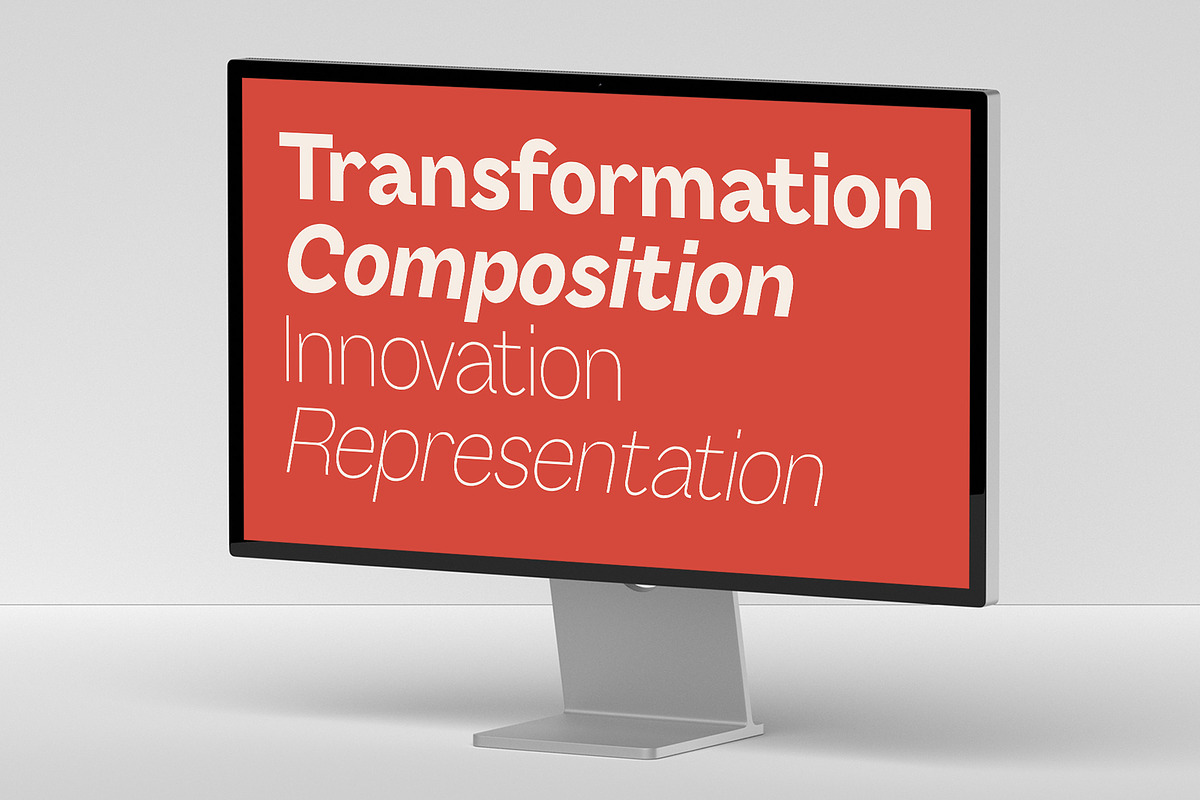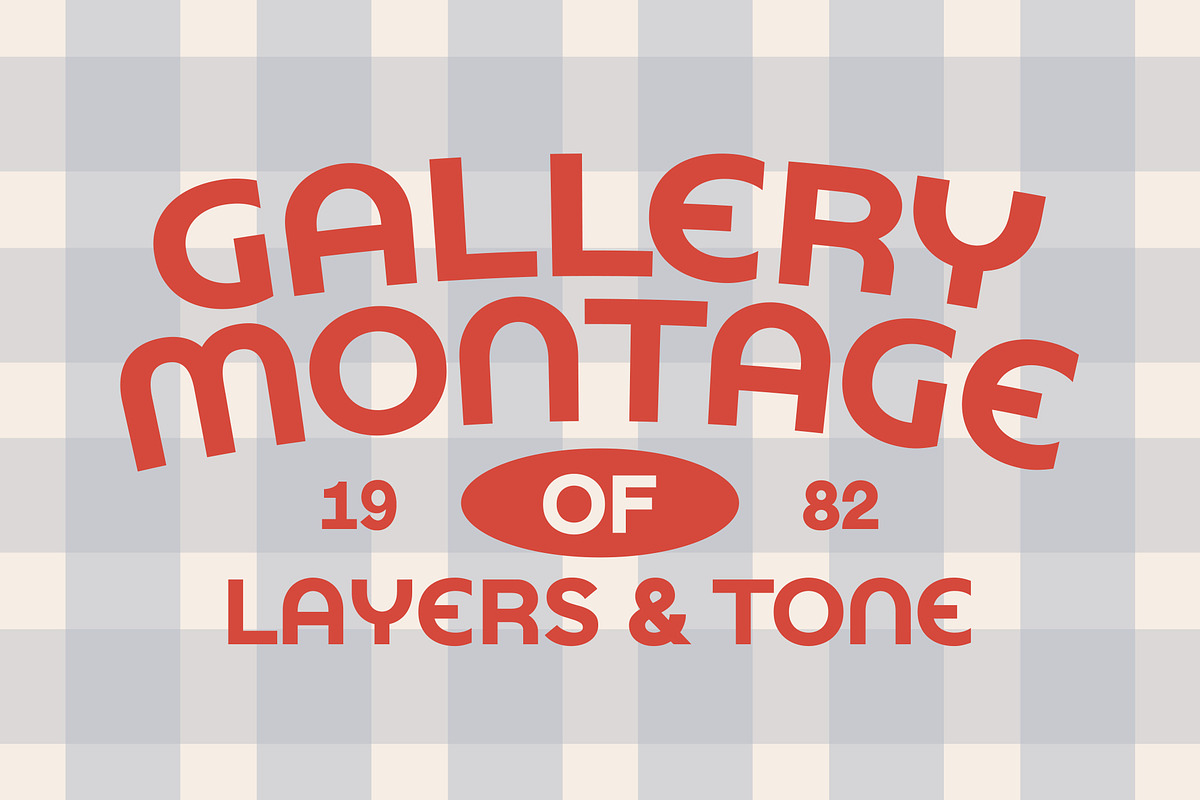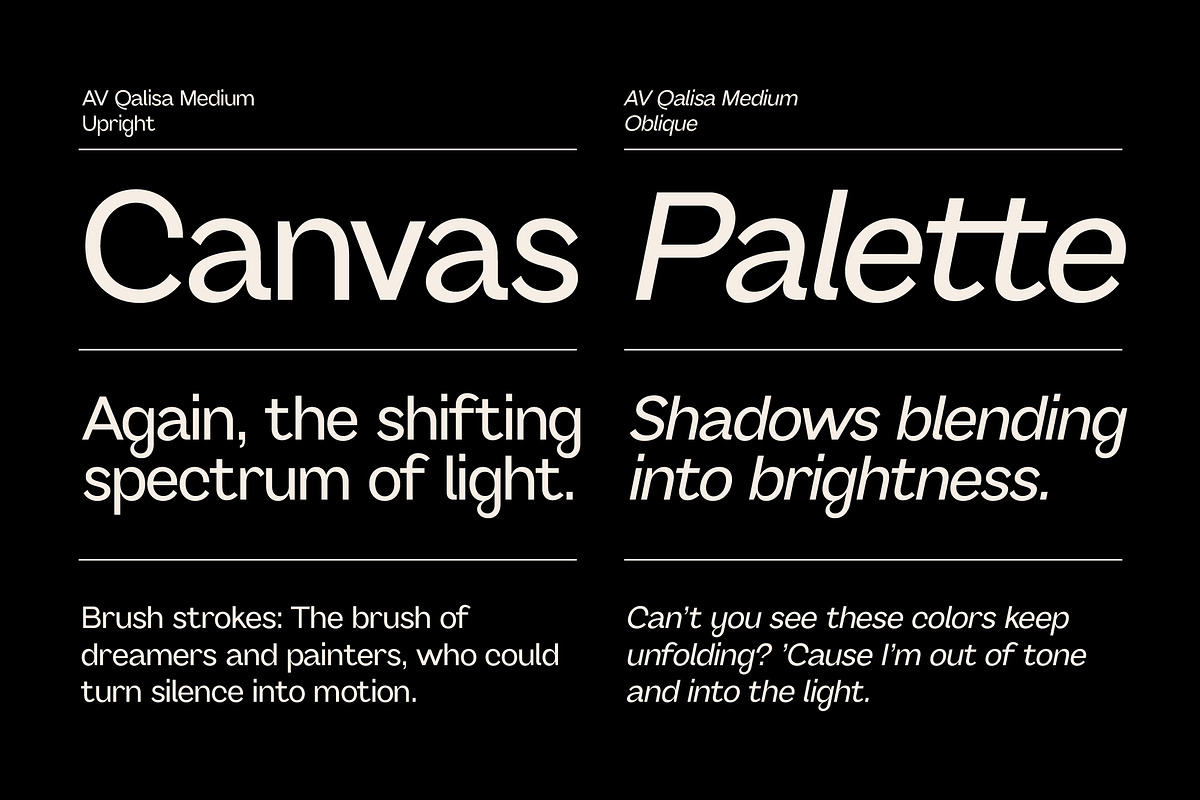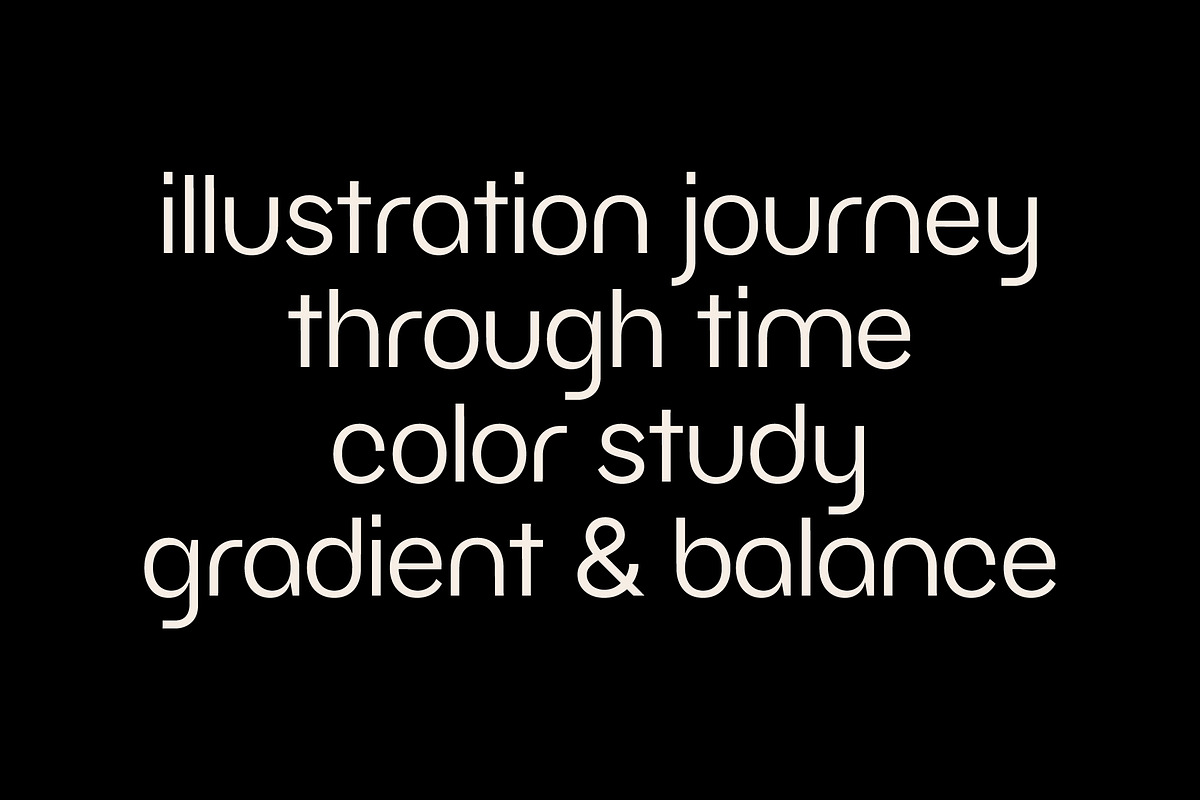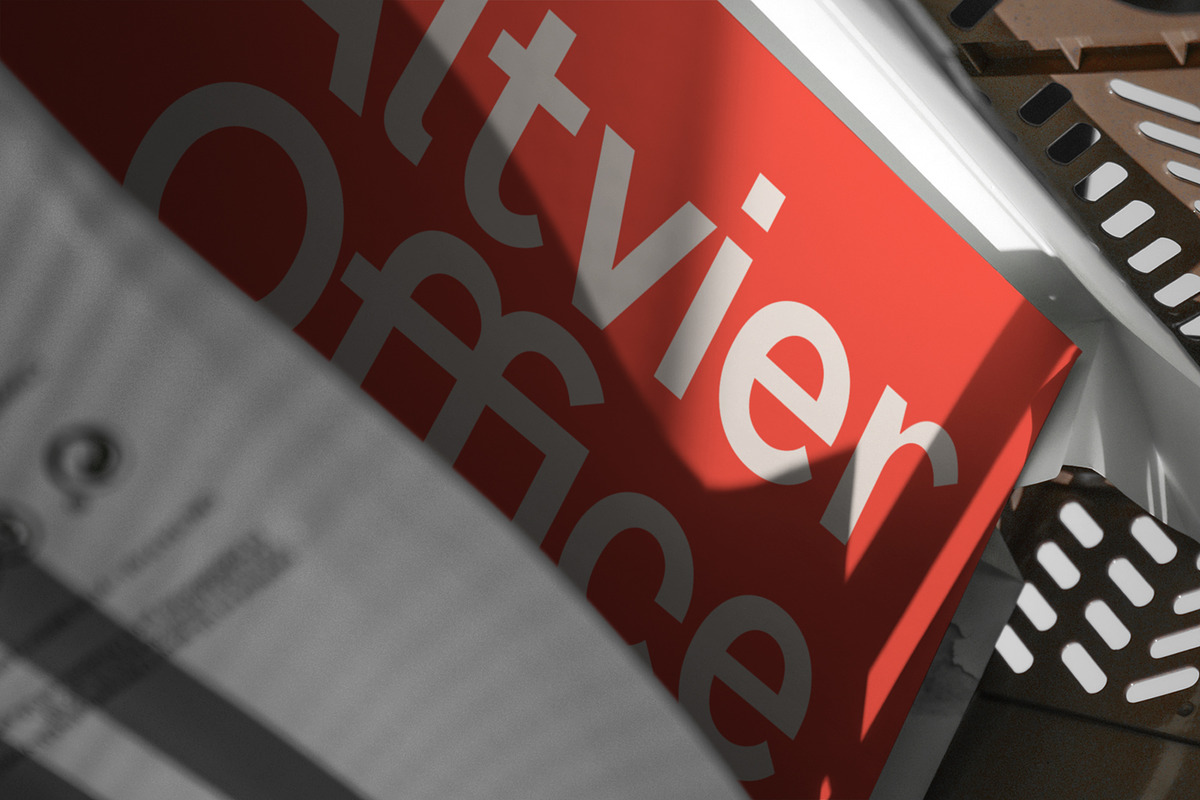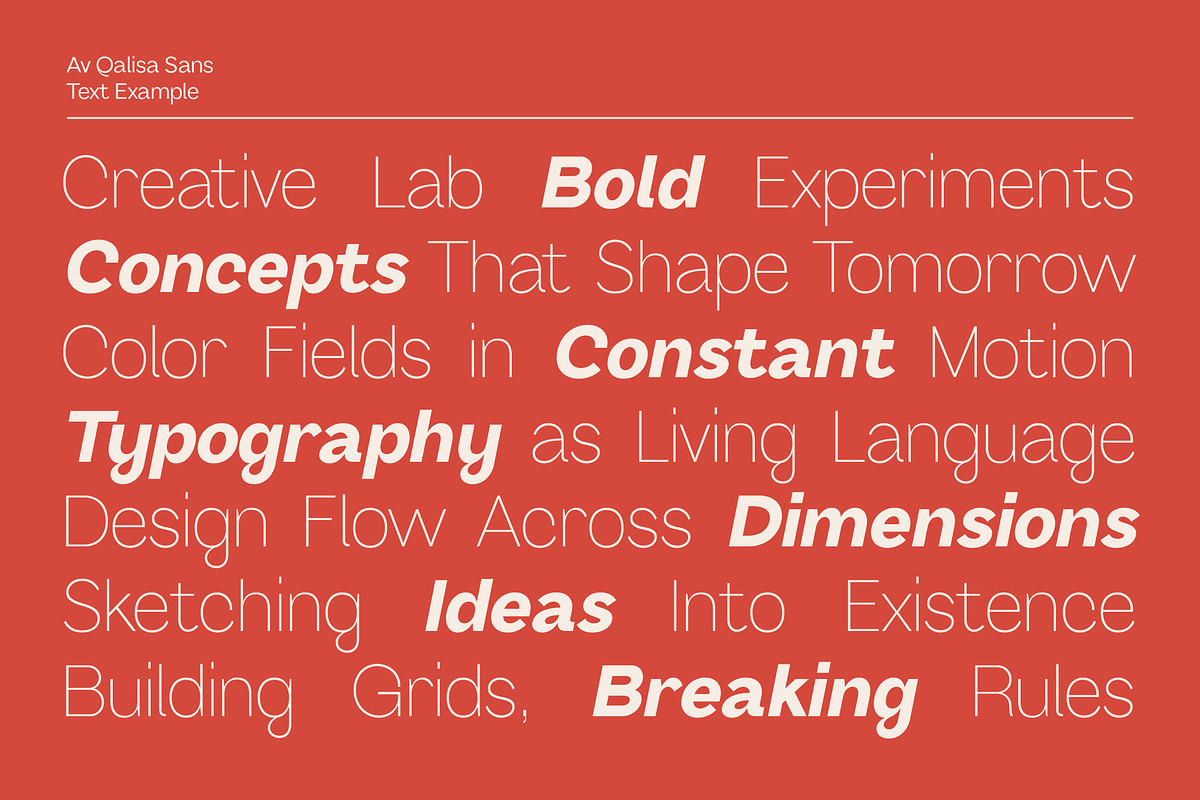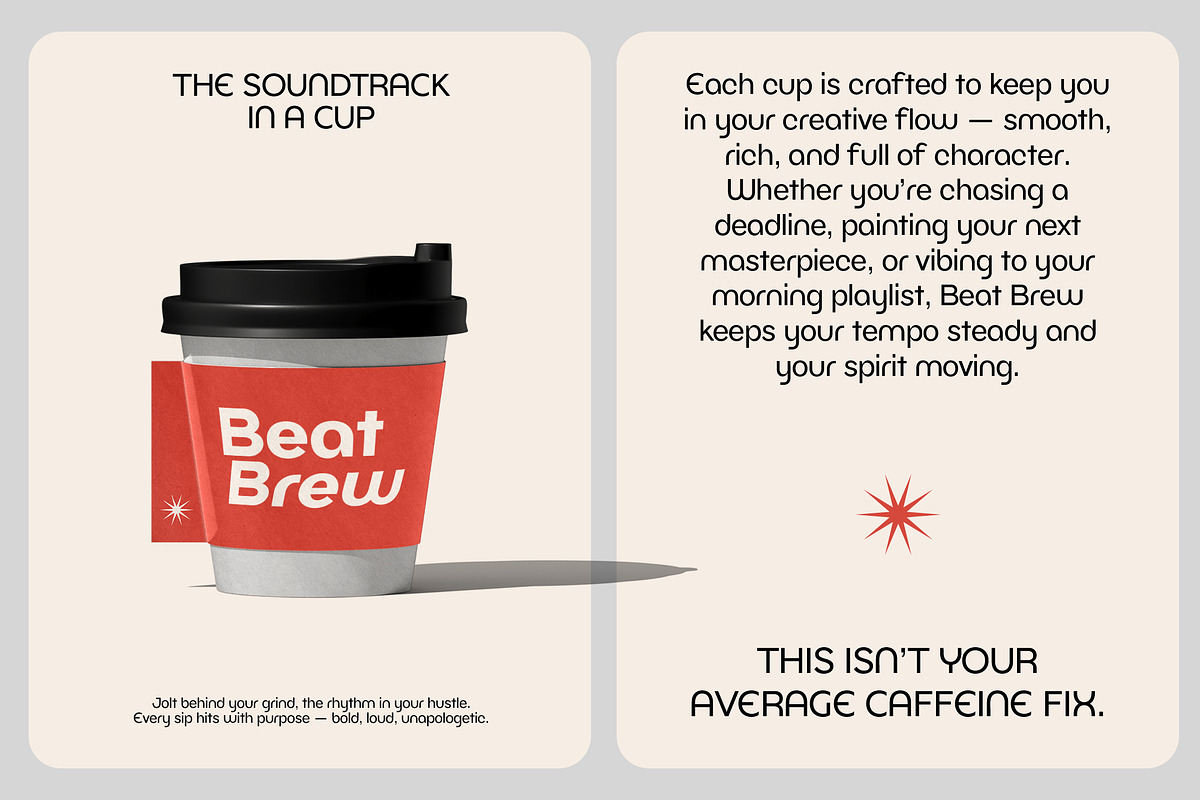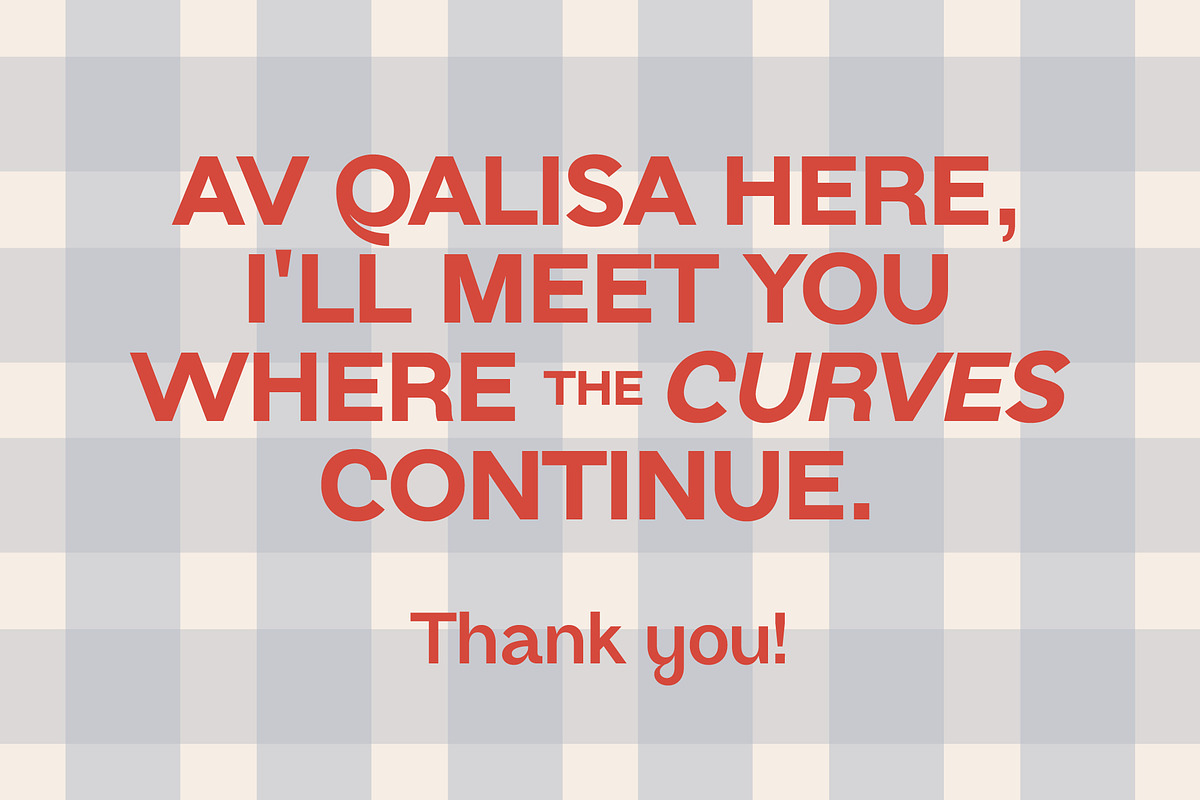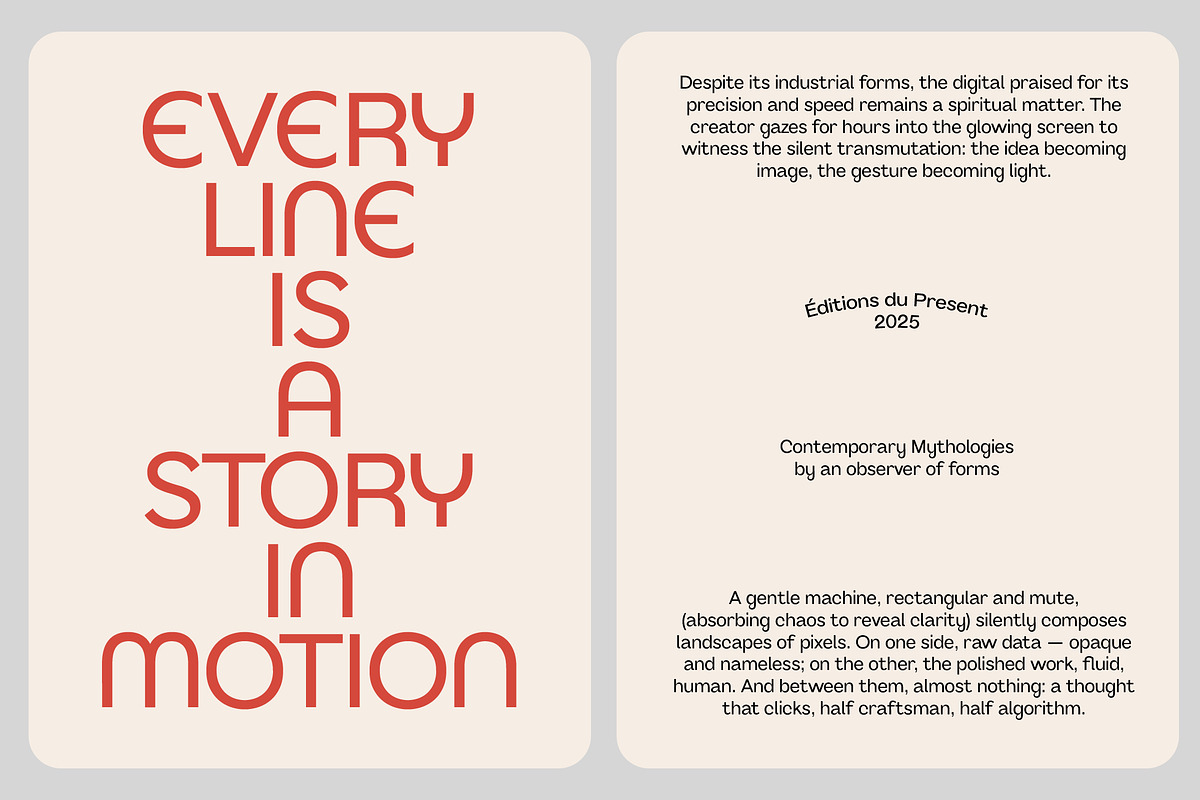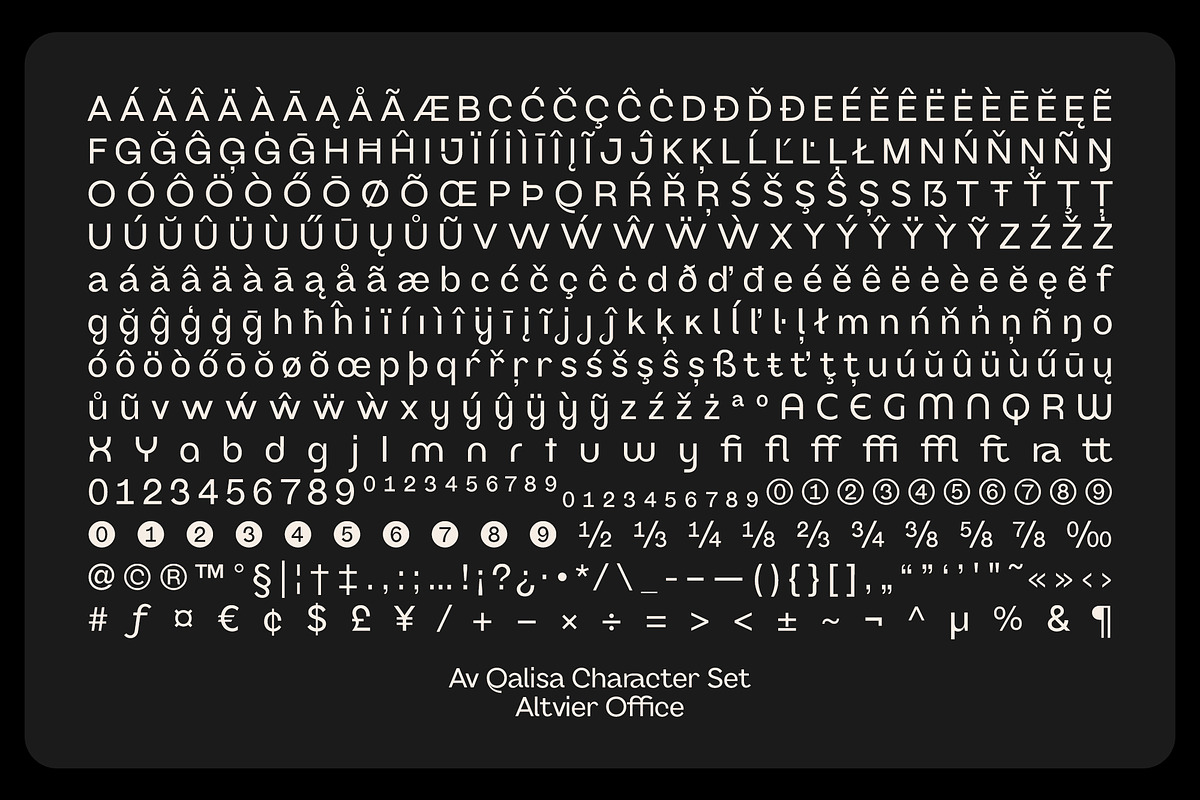
Qalisa - Modern sans
Qalisa was crafted to balance modern minimalism with soft, refined curves. Inspired by editorial elegance and digital clarity, it works beautifully across branding, publishing, and digital interfaces. Clean and minimalist aesthetic, versatile typeface perfect for a wide range of design projects.
- 6 Weights font
- Stylistic Alternates & Ligatures